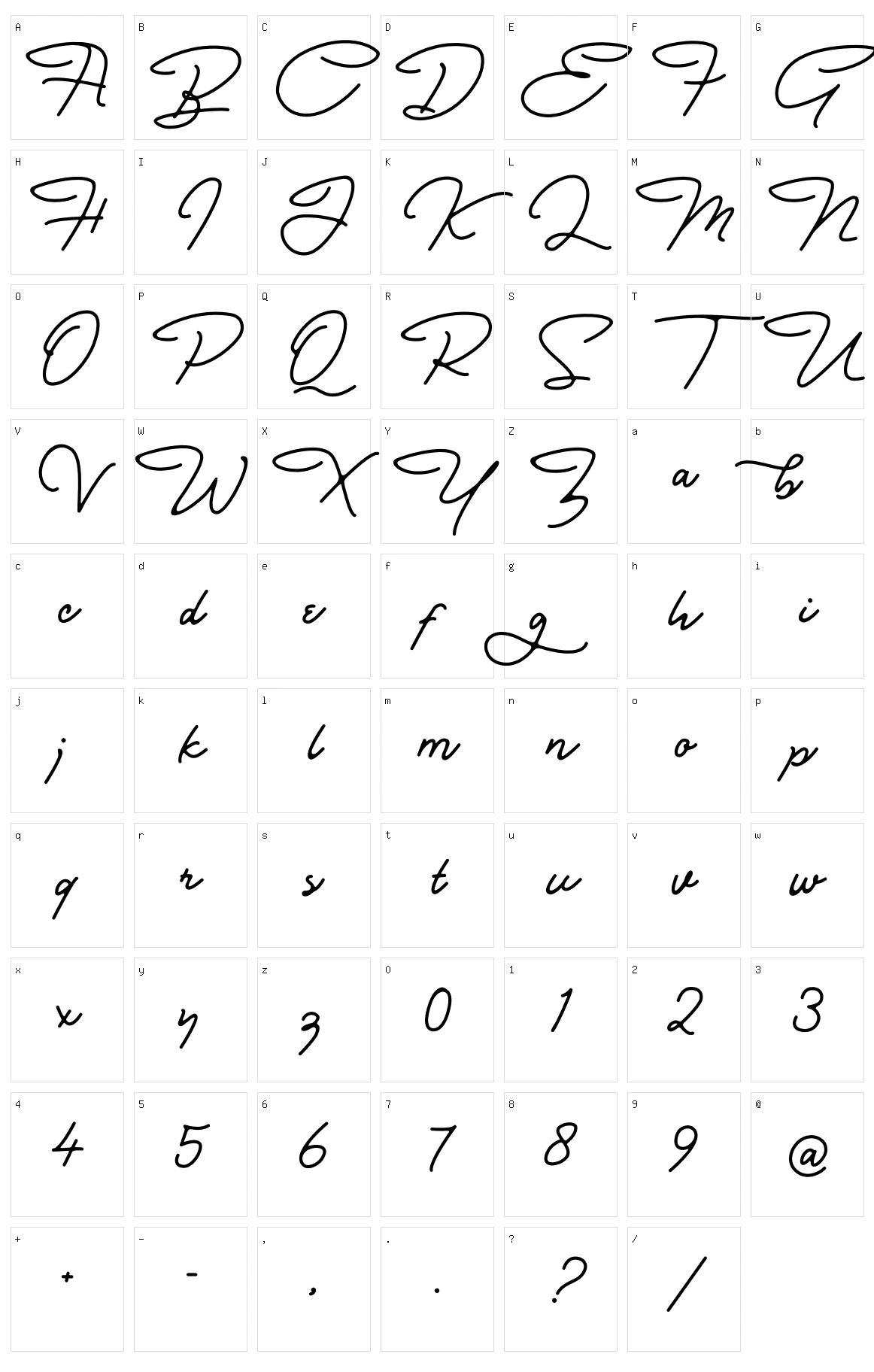
The free font Bull Stander is carefully designed by Dirtyline Studio, showcasing a thoughtful balance of creativity and usability and falls under the Script font style. When you download the ZIP file, it contains only 1052.97 KB of font files, making it lightweight and quick to download. Please review the license details below to understand permitted usage and distribution rights. If license information is not available, we recommend using this font for personal projects only or contacting the author directly for commercial usage permissions.